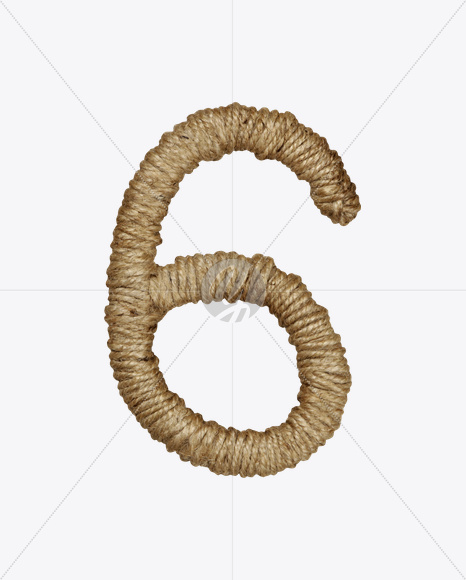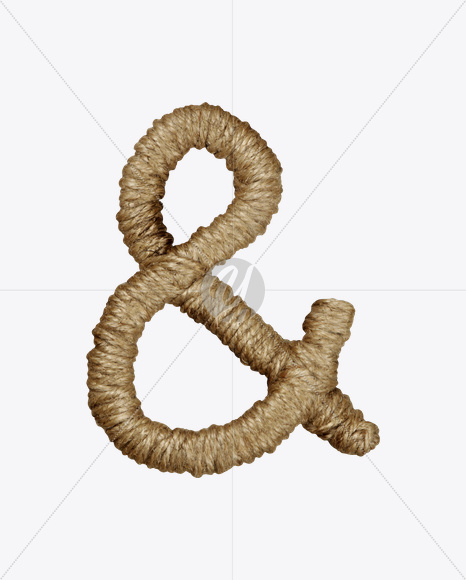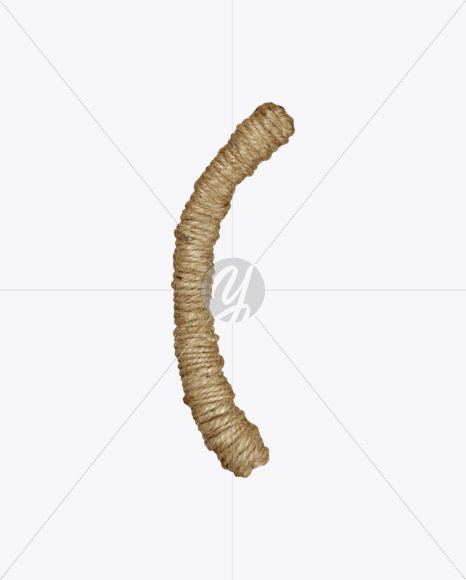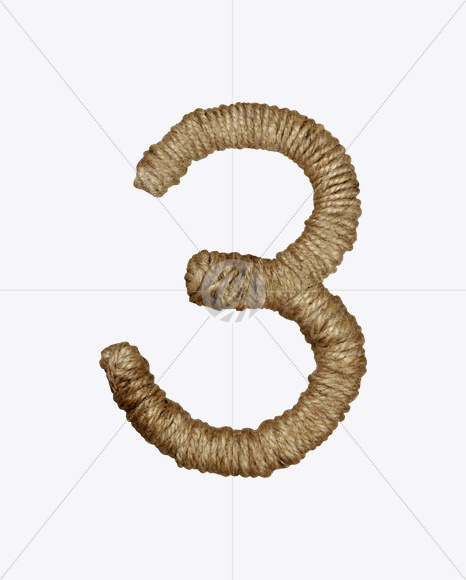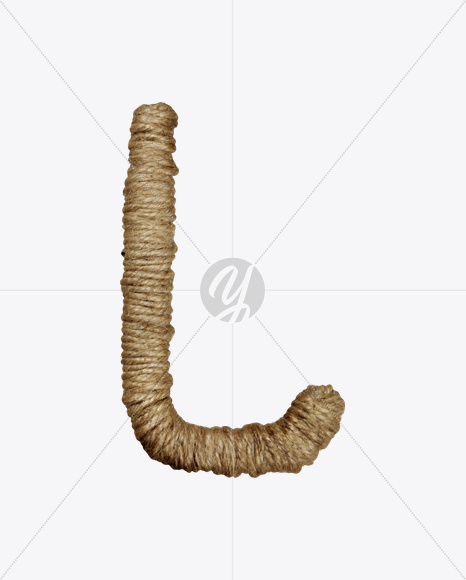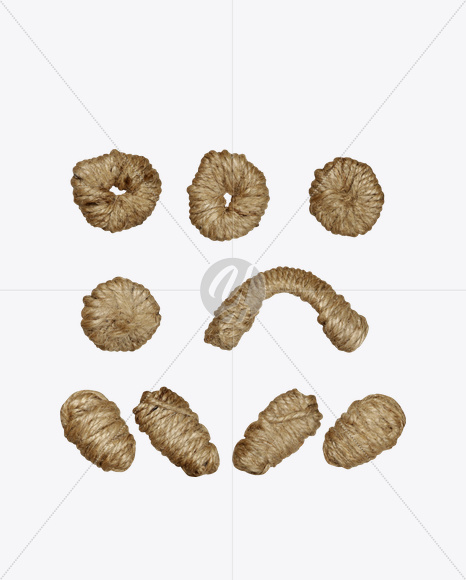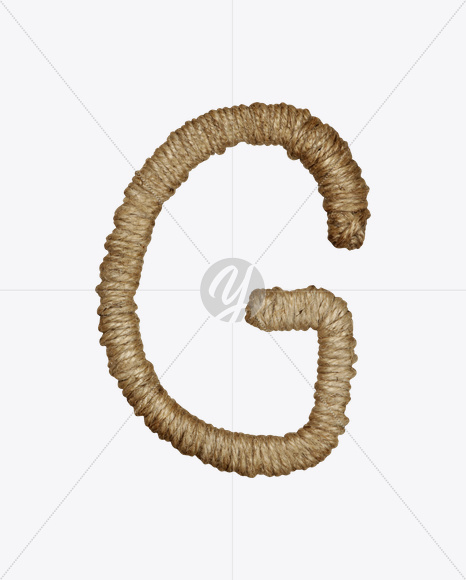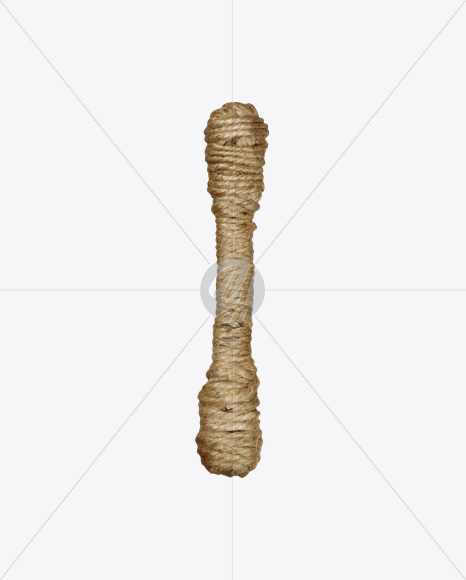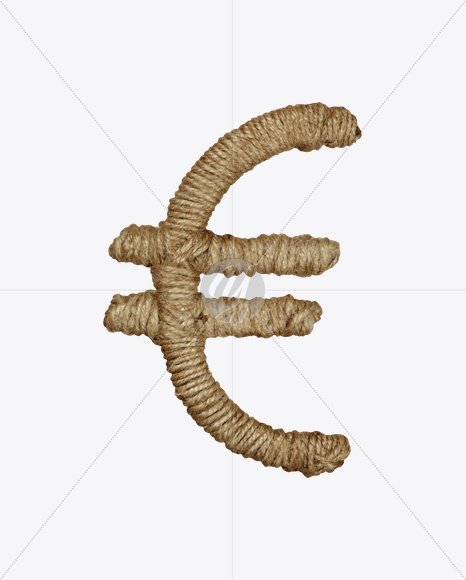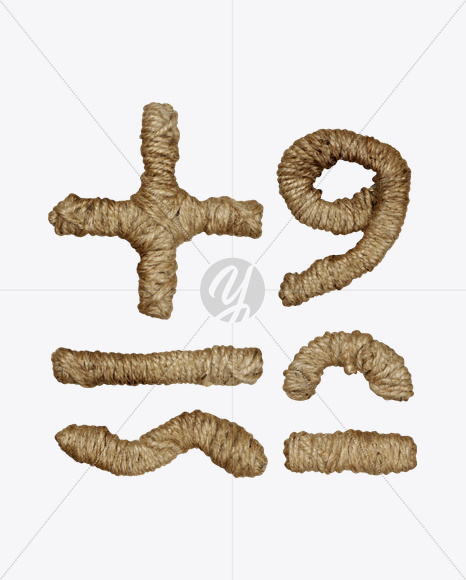
Rope Brown Font For Real Cowboys And Gowgirls
Rope Brown Font is attractive and appealing enough to hold somebody’s attention. Rope Brown Font can be used for your professional or personal use. Unique font’s clean design and modest layout patterns make customers access it easily. Use this handmade font to tie the most trusty lasso and to rope the wildest mustang on the range. Indulge in a wild west fantasy!